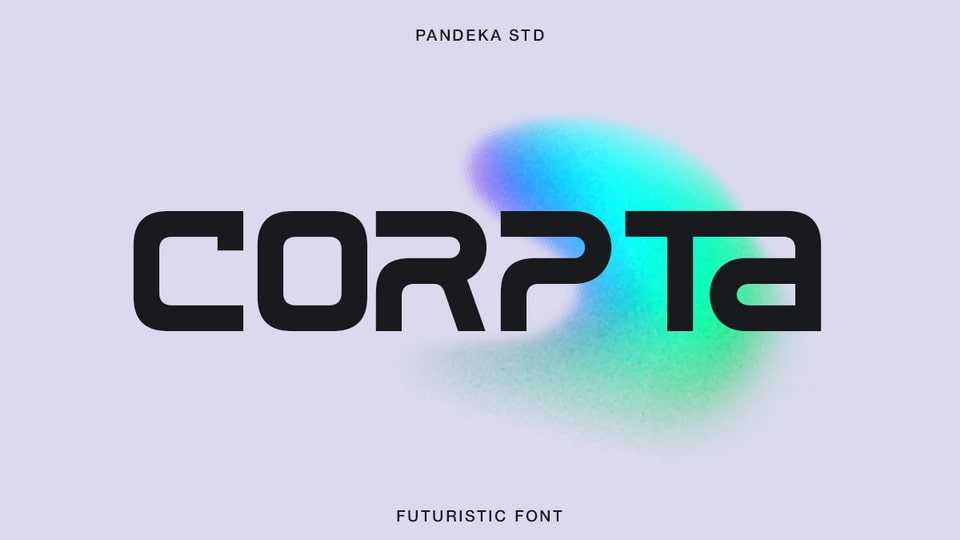
Download Corpta font, a futuristic tech-inspired display typeface designed for innovation-driven projects. With its sleek and modern letterforms, it captures the essence of cutting-edge technology,